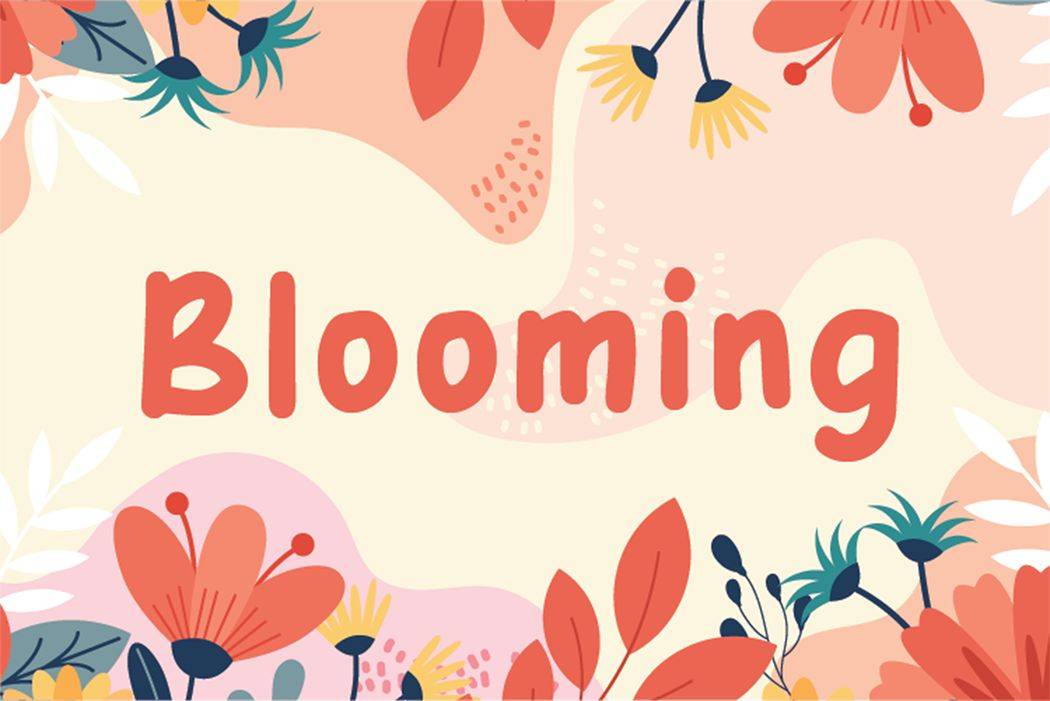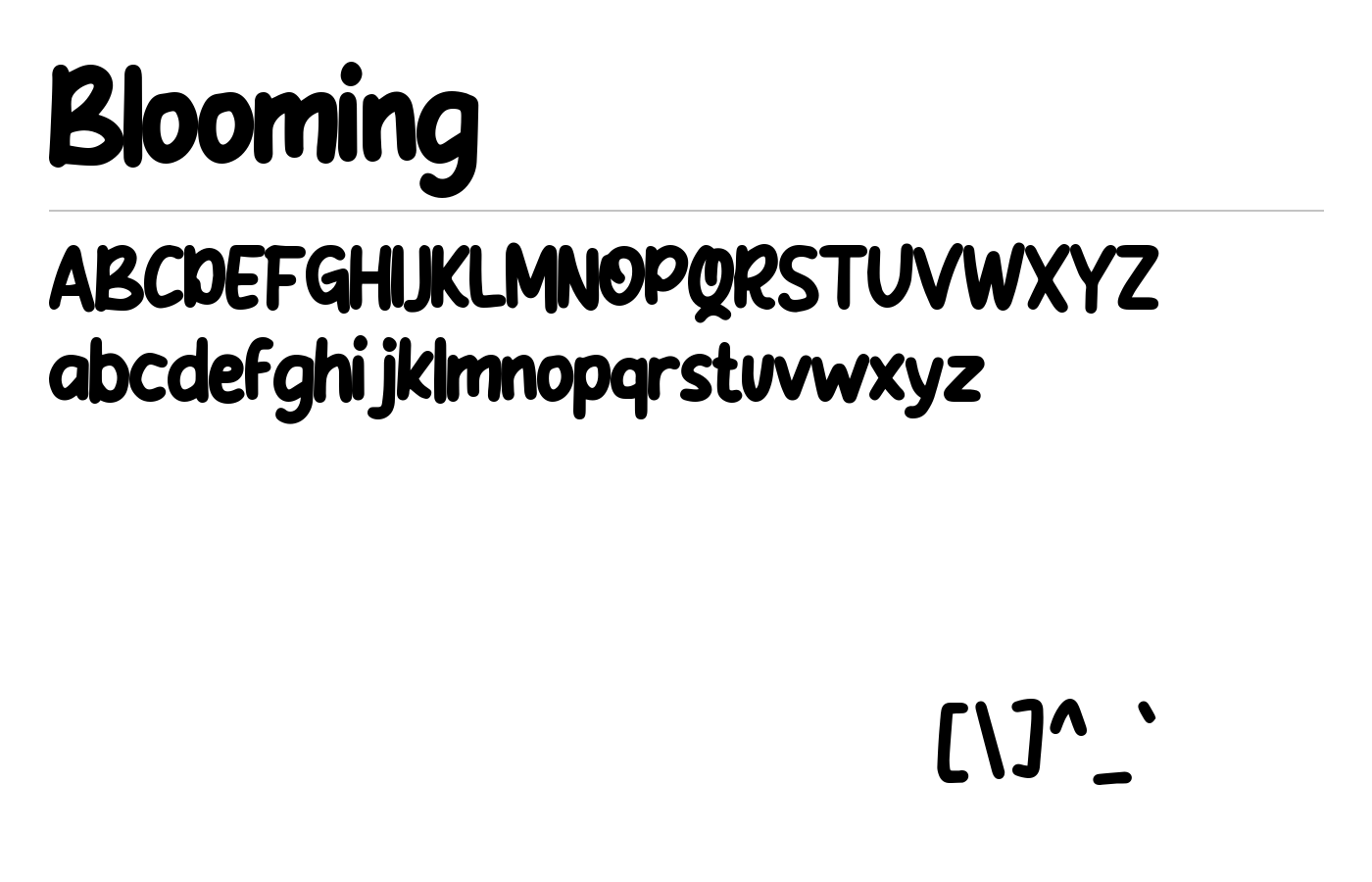
Blooming is a bold, rounded sans serif font with a friendly and playful personality. Its thick, uniform strokes and slightly irregular letterforms give it an inviting, hand-drawn feel that works well for casual branding, children's materials, and fun headlines. This font shines in designs that seek warmth and approachability, perfect for logos, posters, and informal digital content.
Blooming Font
About Blooming Font